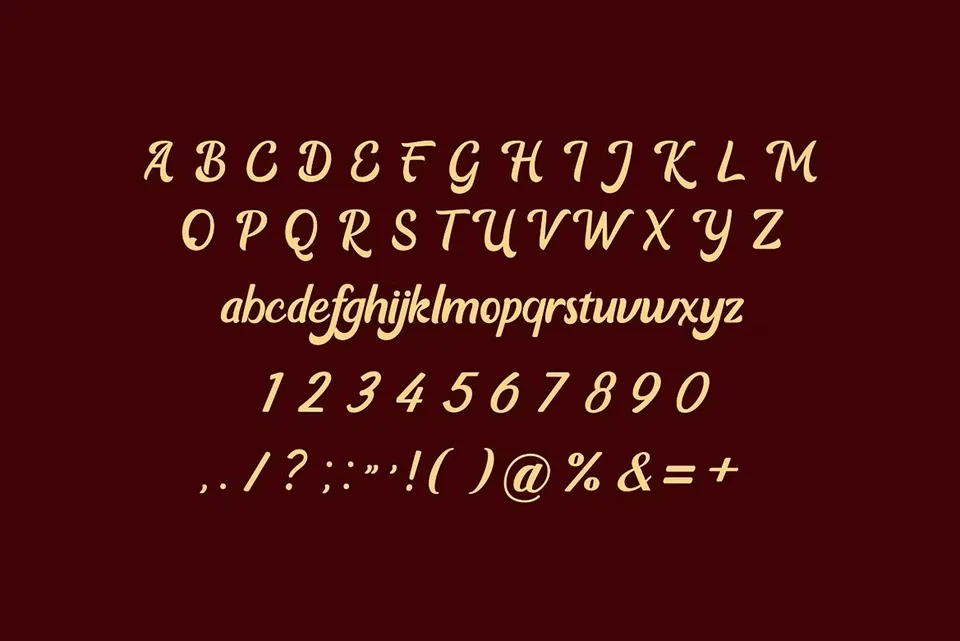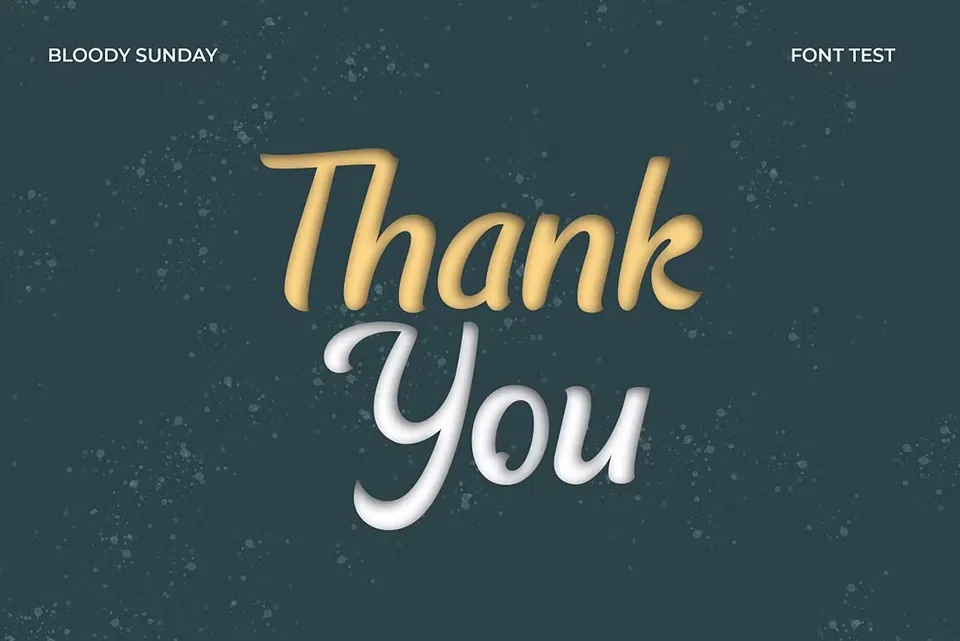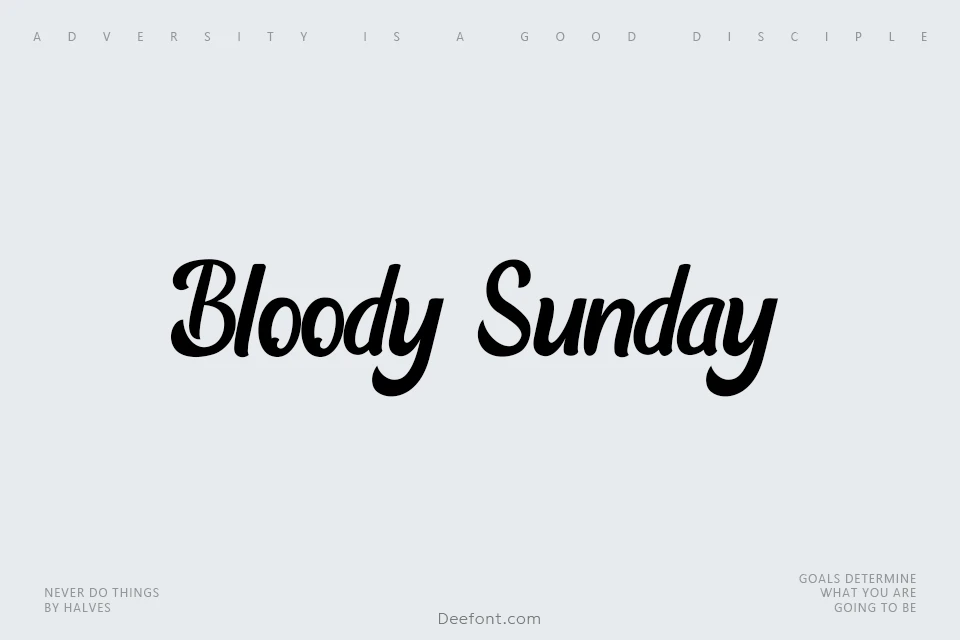
Bloody Sunday Font
Bloody Sunday Font is a bold retro script font featuring alternates, ligatures, and swash elements to create captivating typography. This font is perfect for a wide range of creative projects, including signatures, stationery, logos, wedding invitations, typography quotes, magazine or book covers, website headers, clothing designs, branding, and packaging. Its versatile style suits both masculine and feminine editorial or branding displays, making it an excellent choice for fashion-related and modern design needs.